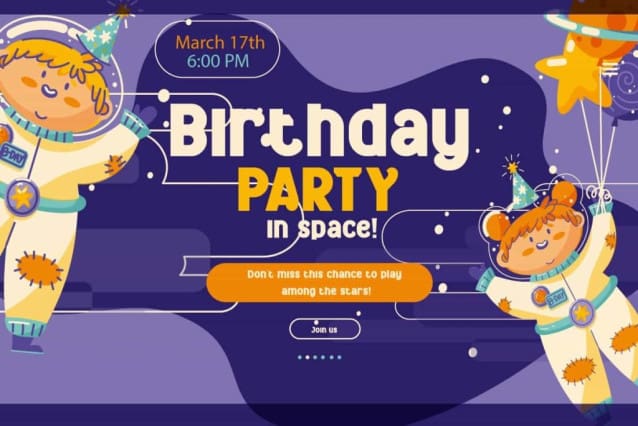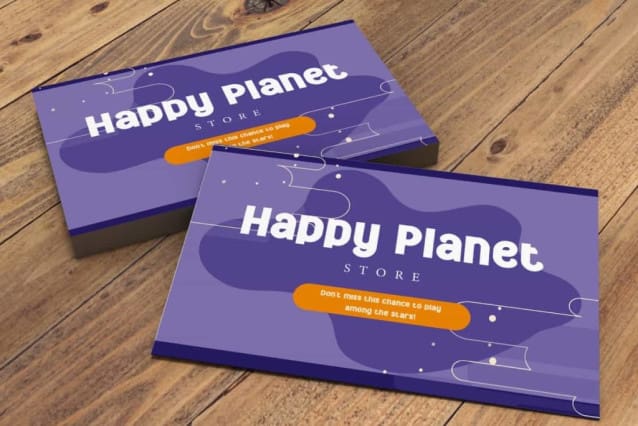
Mold Planet Font
Mold Planet Font is a fun and playful modern display font with unique shapes. This font has thick and slightly short lines to give it a cute feel that suits many designs, such as brochure, business card, custom design, gift box, invitation, label, product packaging, quote, screen printing, signage, stationery, website, and more!
Mold Planet Font includes full set of Uppercase and Lowercase Basic Characters, Numerals, Punctuation, Symbol, and Alternate characters. This font is inspired by many children’s books and will be suitable for many industries, such as accessories, advertising, beauty product, cafe, event or festival, fashion, florist, furniture, handicraft, kids stuff, resort, etc.